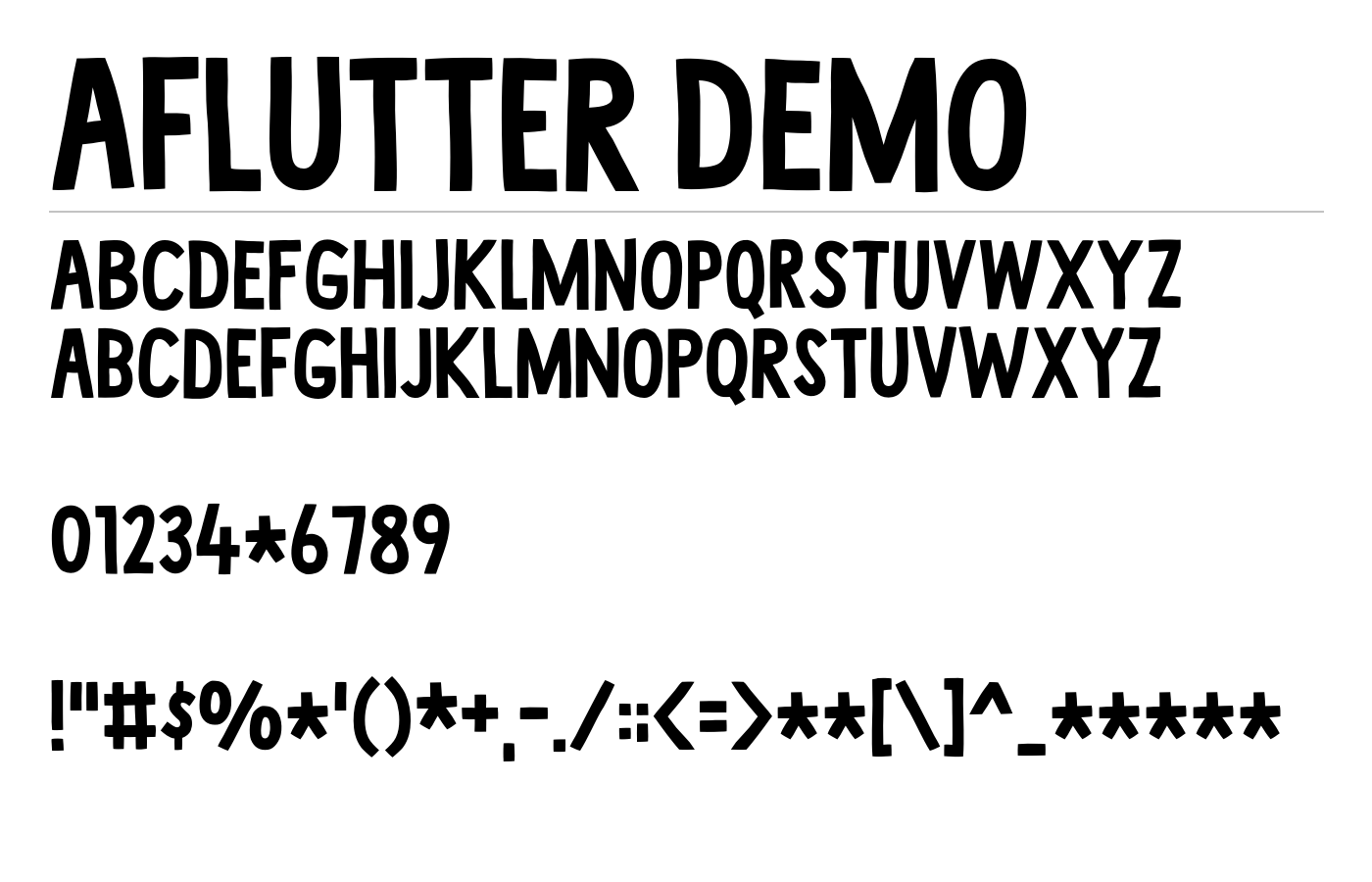
Aflutter DEMO is a bold, playful sans serif font with irregular, slightly condensed letterforms that give it a hand-drawn, energetic feel. Its high x-height and quirky character shapes make it ideal for casual, fun designs, perfect for children’s books, posters, or branding that wants to convey friendliness and creativity. This font stands out in headlines and display uses where a lively, approachable vibe is needed.
Aflutter DEMO Font
About Aflutter DEMO Font
| Font family | Aflutter DEMO Font |
| Designer | Jakob Fischer / pizzadude.dk |